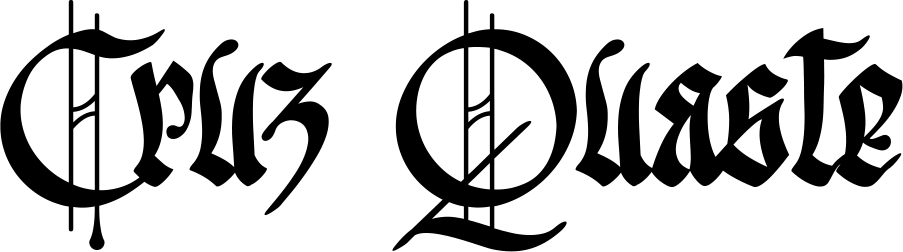
Cruz Quaste Font
Cruz Quaste is bold, angular, and old-school. It is a black letter font that is strong and medieval. The character collection does not contain numbers but it comes with both uppercase and lowercase letters. If you’re looking for a blackletter tattoo font for medieval movie posters, book covers, and flyers Cruz Quaste works wonders!